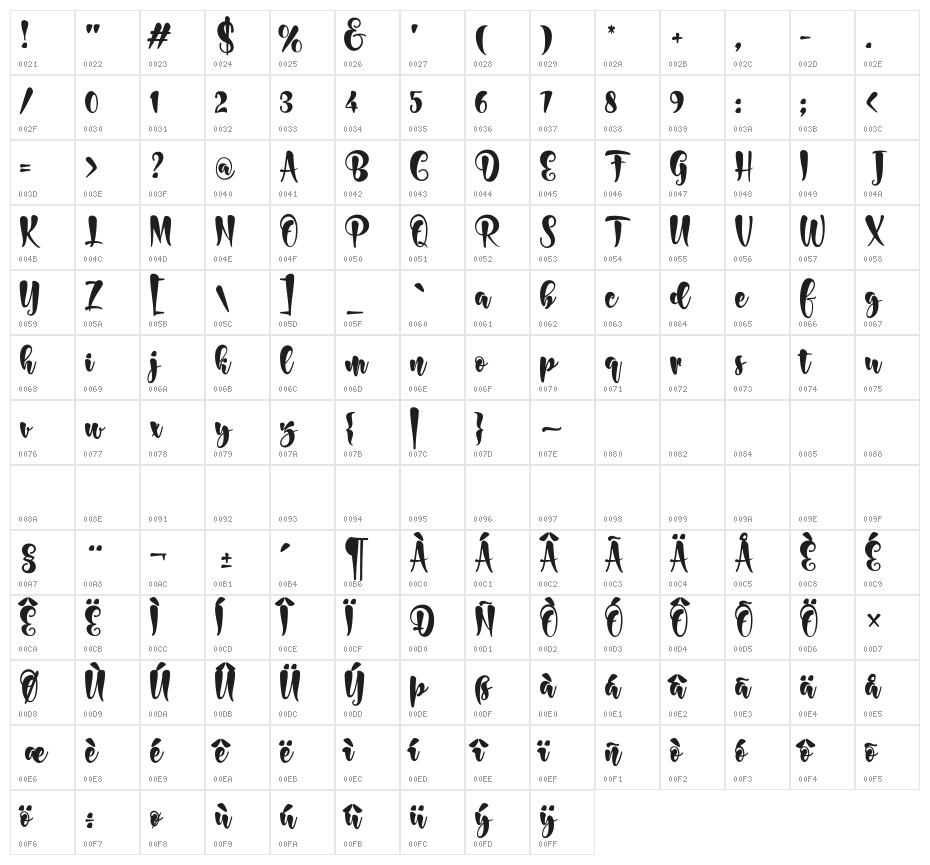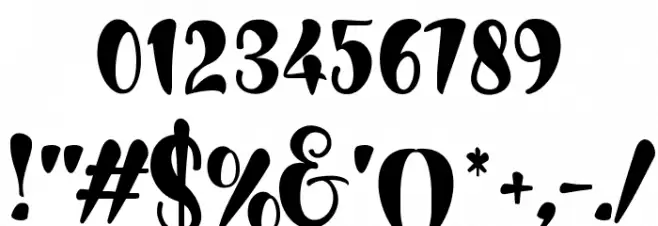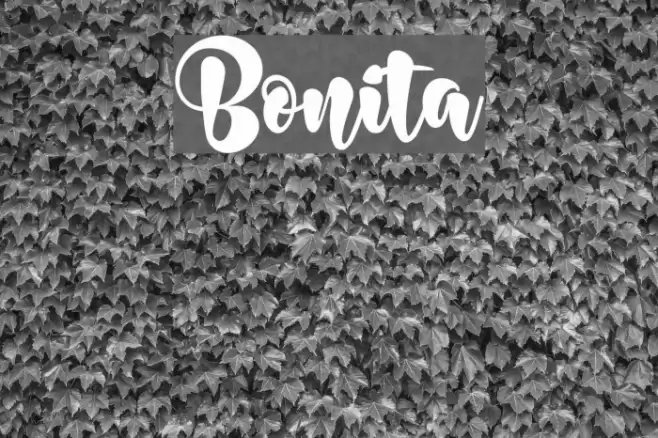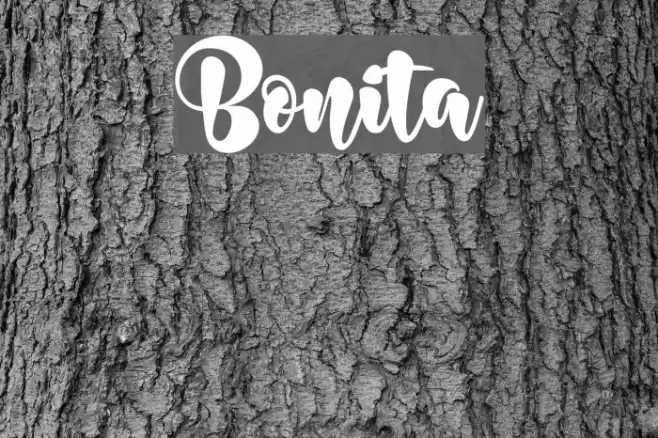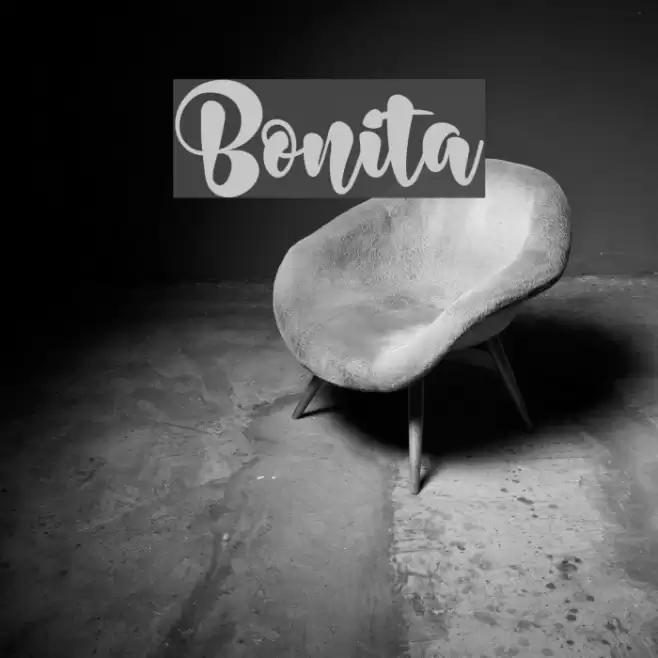
Bonita Font
Bonita Description
This font features a bold and expressive script style with a playful and artistic flair. The uppercase letters are characterized by their sweeping curves and flourishes, giving them a dynamic and lively appearance. The lowercase letters maintain a consistent flow, with some letters featuring loops and swashes that add to the font's decorative nature. The numbers are equally bold, maintaining the same playful style as the letters. Special characters are designed to complement the overall aesthetic, making this font suitable for creative and eye-catching designs.
| Use Case | Logos, Headlines, Invitations |
| Proposed Projects | Ideal for wedding invitations, greeting cards, branding, and logo design. |